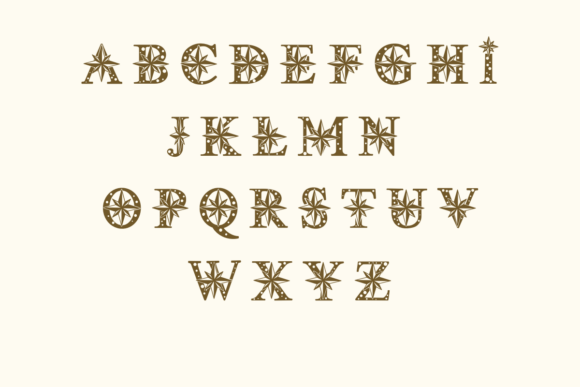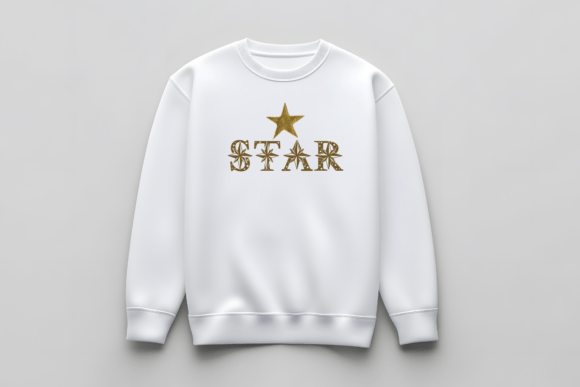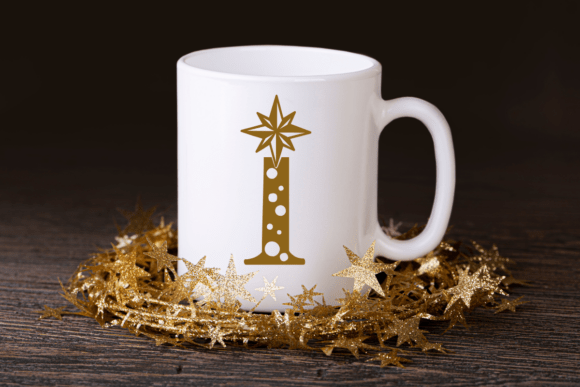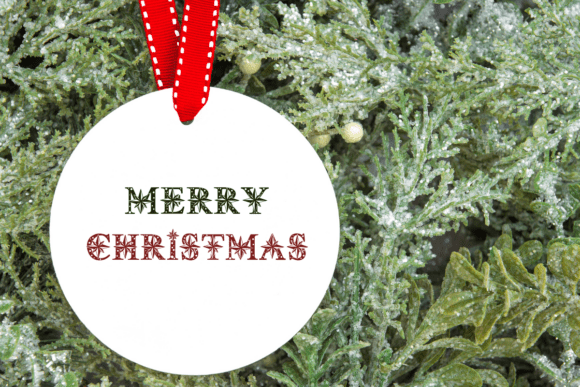
Deck the Halls with Holiday Cheer: Introducing the Christmas Star Font
As the snowflakes start to fall and the fireplace crackles to life, the holiday season is in full swing. For many designers, this time of year is a chance to get creative and craft unique, festive designs that capture the magic of Christmas. Whether it’s a holiday card, a festive invitation, or a seasonal social media graphic, the right font can make all the difference.
Enter the Christmas Star Font, a beautifully decorative typeface that’s perfect for spreading holiday cheer. With its elegant star illustrations and subtle dot patterns, this font brings a whimsical, sparkling effect that’s sure to delight. Whether you’re working on a print or digital project, the Christmas Star Font is a valuable addition to any designer’s toolkit.
Christmas Star Font Key Features
- Font Family: A unique, custom-designed font specifically created for the Christmas season, featuring festive and starry elements.
- Unique Characteristics: The font features intricate star patterns, holly leaves, and other festive elements, making it perfect for holiday-themed designs.
Designer Review: Christmas Star Font
Overall, I think the Christmas Star Font is a unique and festive addition to any holiday design project. ✨ Here are some of its strengths:
- Whimsical and playful feel that’s perfect for Christmas-themed designs
- Includes a range of characters, including letters, numbers, and punctuation
- Well-suited for use in headings, titles, and other display typography
- May be too busy or overwhelming for certain designs, particularly those with a lot of existing text
- Lack of bold weight or italic styles may limit its versatility
- Not particularly suitable for use in body text or long blocks of text
Overall, I think the Christmas Star Font is a fun and creative choice for holiday designs, but it may not be the best fit for every project. With some careful planning and selection, it can add a touch of festive flair to your designs. ✨
For a festive touch, pair the Christmas Star Font with other holiday-themed elements like holly leaves or snowflakes.
For a more intricate design, experiment with layering the Christmas Star Font with other elements like ornaments or garlands.
For a cohesive look, pair the Christmas Star Font with other holiday-themed elements like gift tags or holiday-themed borders.
Use the Christmas Star Font for:
- Holiday greeting cards and invitations.
- Gift tags and gift wrapping.
- Decorative headings and titles.
- Festive social media posts and graphics.
Remember to pair the Christmas Star Font with other holiday-themed elements to create a
Carolyna Pro is a stylish, high-end script font that exudes sophistication and luxury. It’s perfect for creating high-end designs, invitations, and branding materials. Carolyna Pro is more refined and polished compared to Christmas Star Font, making it a great choice for designers who want to add a touch of glamour to their designs.